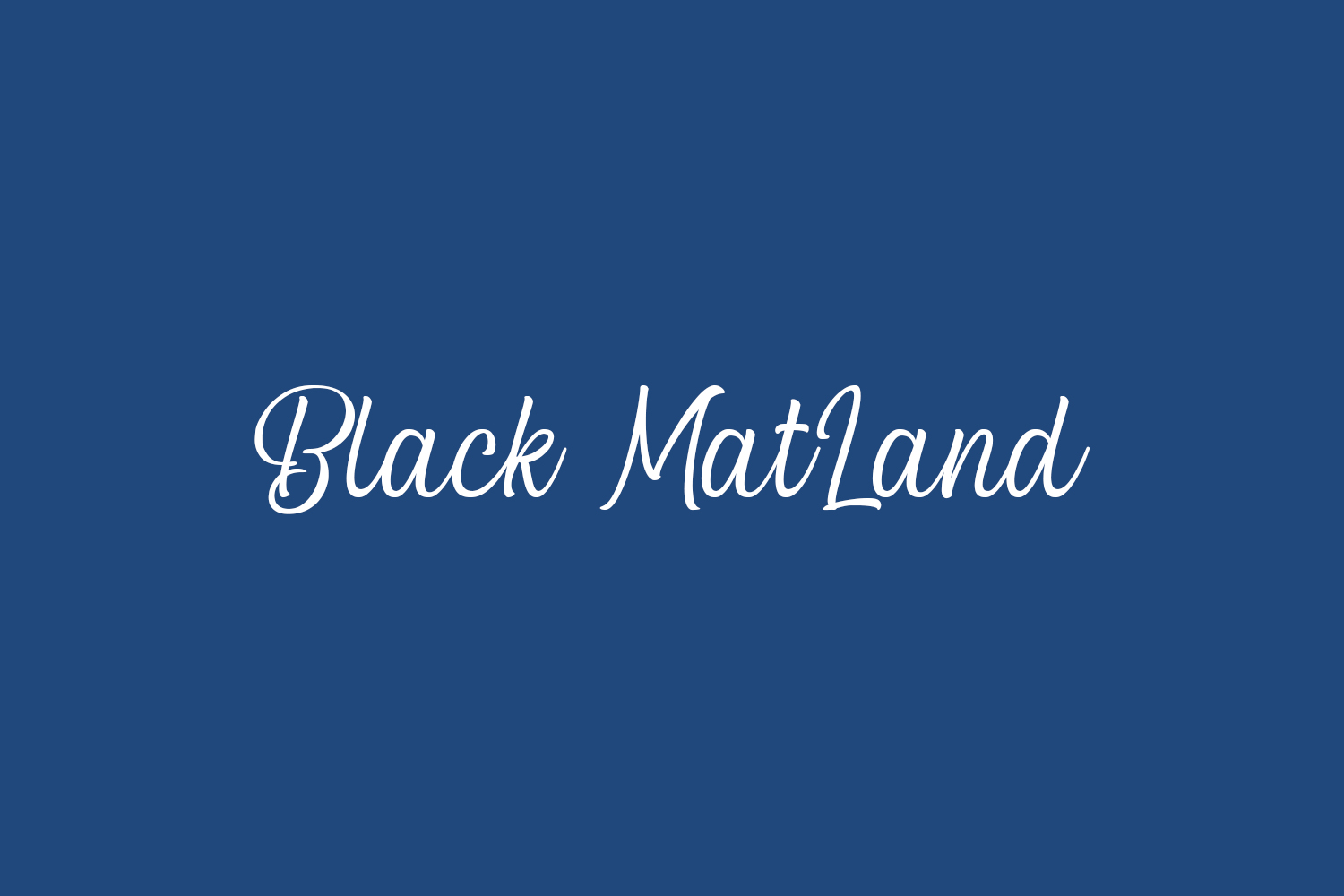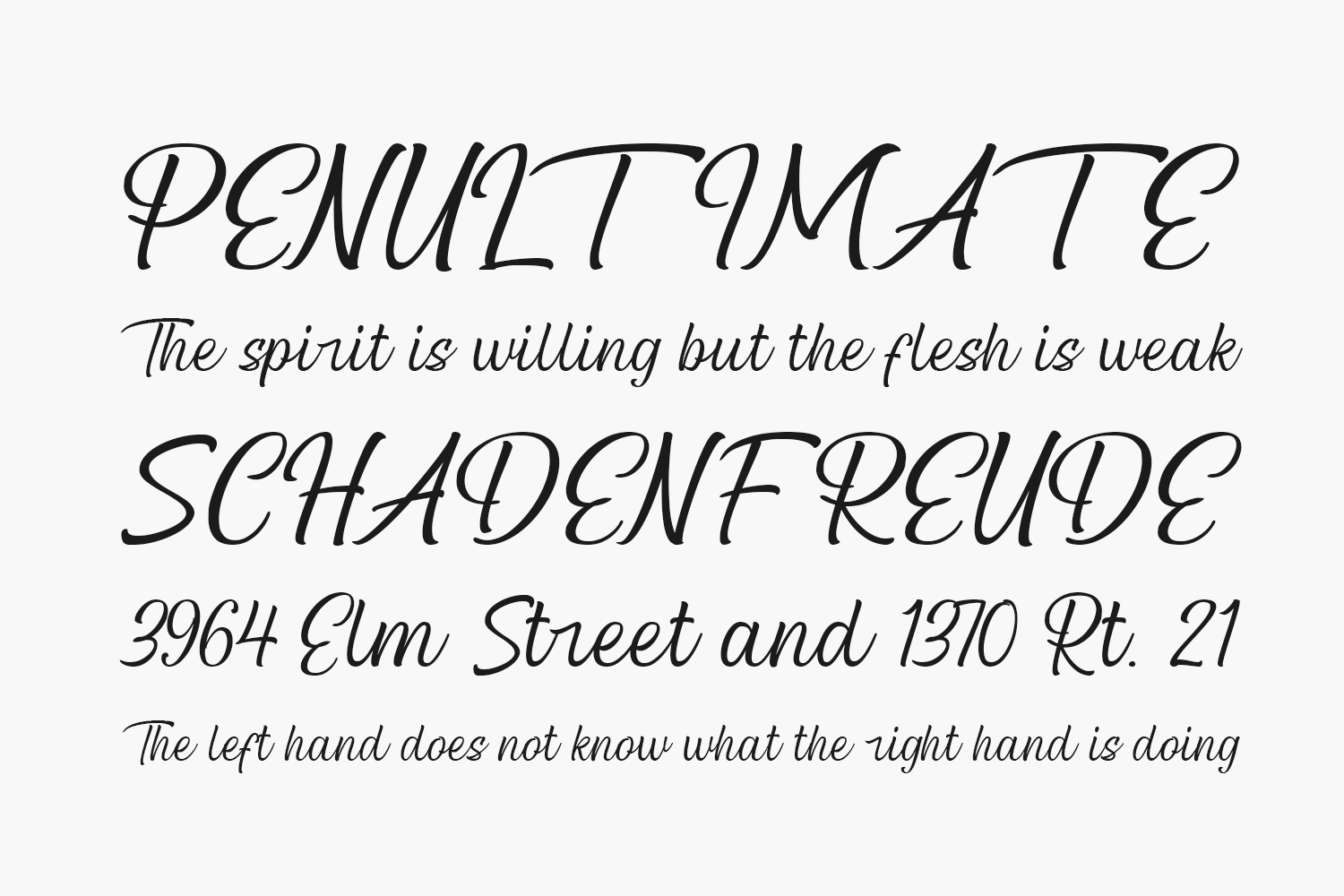
Black Matland Free Font is a stylish handwritten font. With natural and classy letters, this font is perfect for any of your lovely projects that need an original and elegant style. Black Matland Free Font was designed by Mytype Studio and is free for personal use only. Please purchase the full version for commercial use.